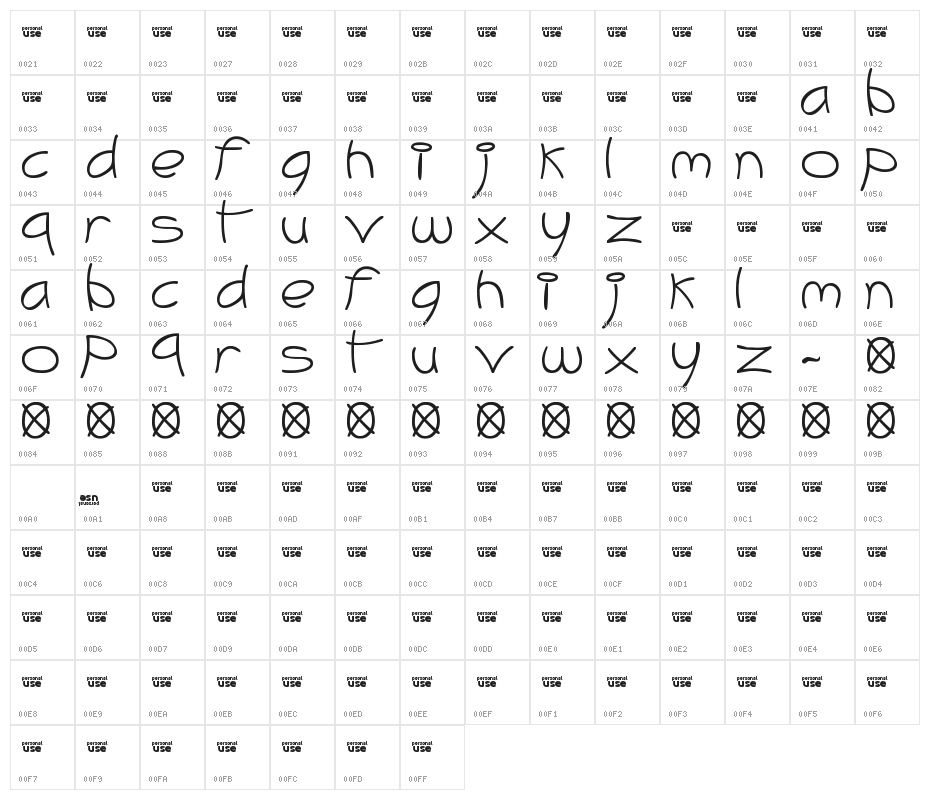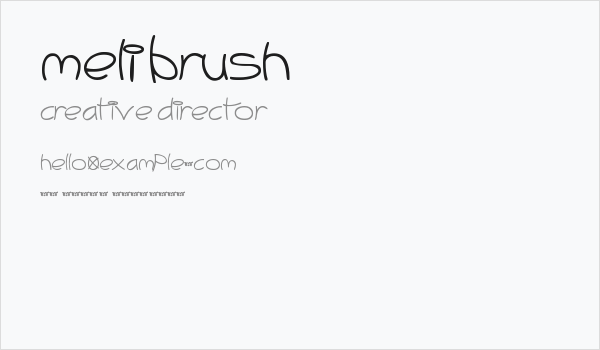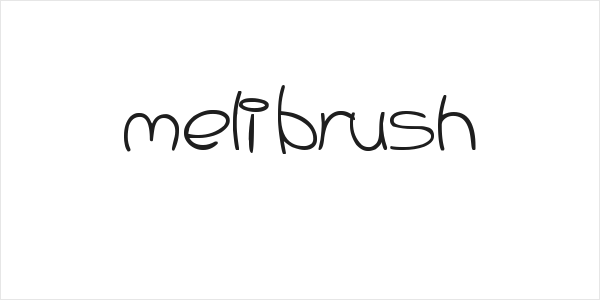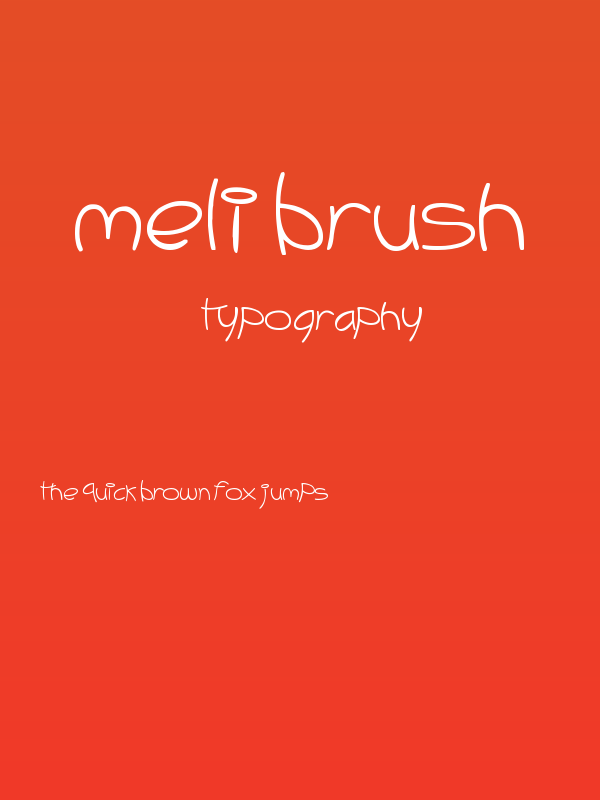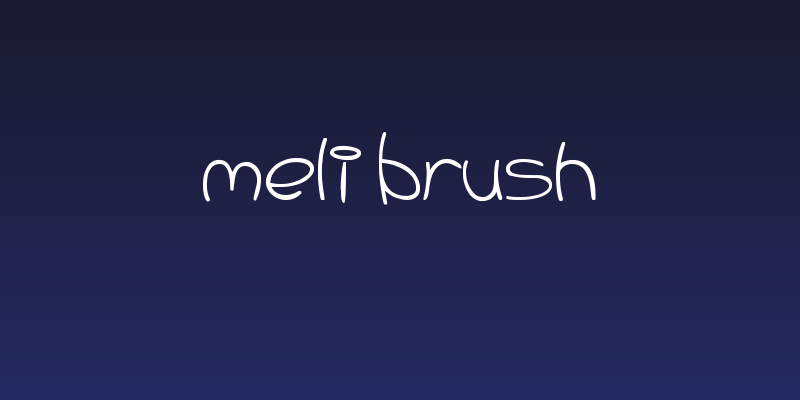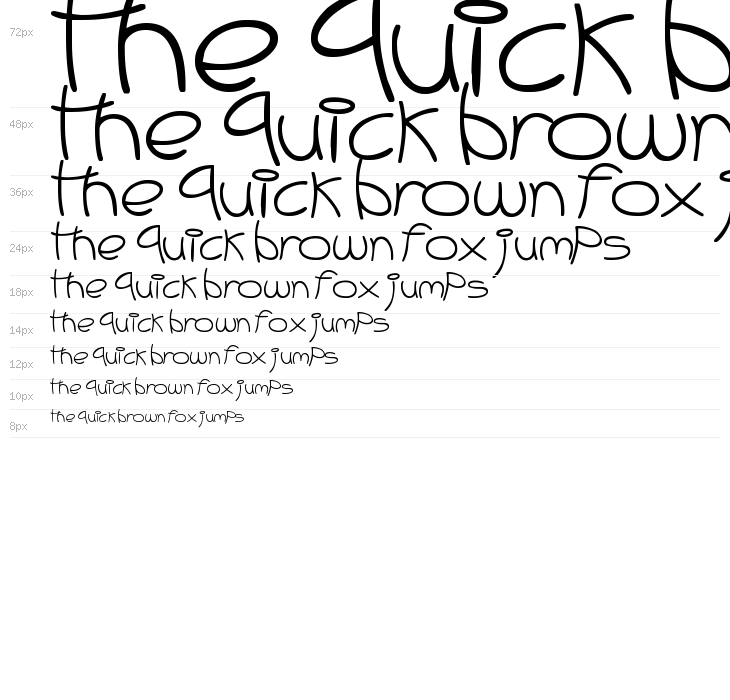
Meli Brush Font
Meli Brush Description
This font features a playful and whimsical style, characterized by its smooth, flowing lines and slightly irregular shapes. The letters have a hand-drawn appearance, with a casual and informal vibe. The strokes are consistent in width, giving it a uniform look, while the rounded edges add a friendly touch. The font maintains a balance between readability and artistic flair, making it suitable for creative and lighthearted projects. Its unique personality is evident in the quirky loops and curves, which add a sense of movement and energy to the text.
| Use Case | Headlines, Creative projects, Informal text |
| Proposed Projects | Ideal for children's books, greeting cards, playful branding, and creative posters. |